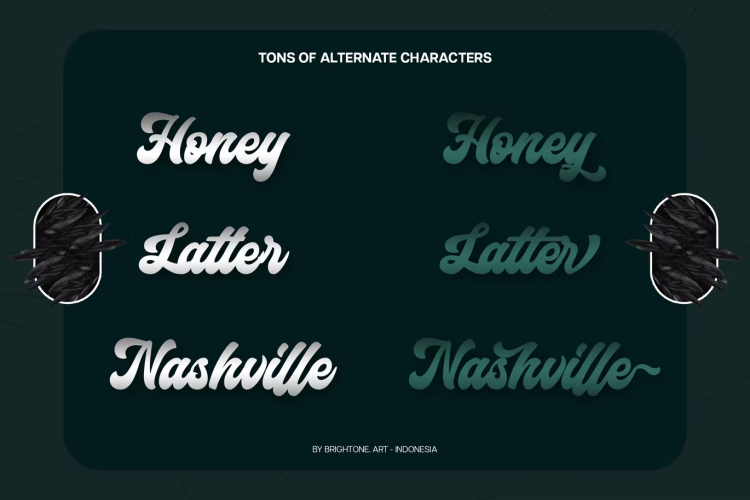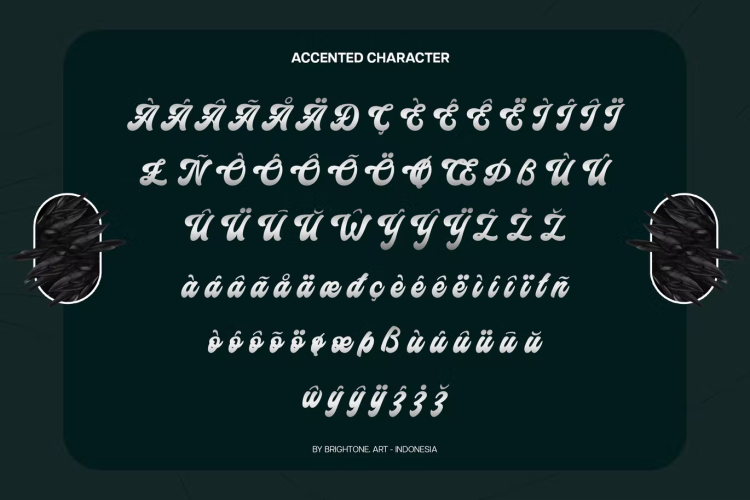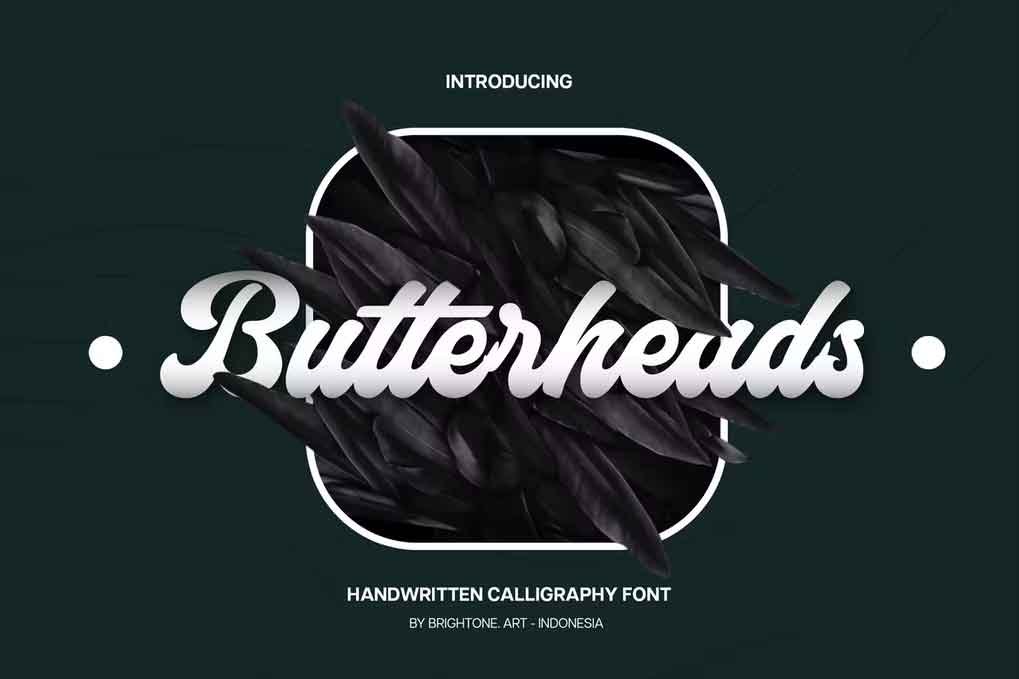
Butterheads Handwritten Calligraphy Font
Butterheads is handwritten script font adapt from classic and modern script calligraphy font style includes: Handwritten script calligraphy font style for your logo lett…
Butterheads
is handwritten script font adapt from classic and modern script calligraphy font style includes:
Handwritten script calligraphy font style for your logo lettering, logo, label, packaging, sticker, branding and many more
Where Butterheads Handwritten Calligraphy Font works best
A short phrase in Butterheads Handwritten Calligraphy Font carries warmth that a typeset sans cannot fake; keep the rest of the card plain.
Chalkboard-style headings in Butterheads Handwritten Calligraphy Font make a menu feel hand-made. Keep the dish descriptions in a simple face so prices stay readable.
One line of Butterheads Handwritten Calligraphy Font over a photo is enough; the script carries the tone and the caption does the work.
What kind of work does Butterheads Handwritten Calligraphy Font suit?
It sits in the Script And Handwritten group and reads as branding, calligraphy, classic, handwritten. That makes it a candidate wherever those qualities help: headings, packaging, social graphics and brand work. Set it at the size you plan to use before deciding.